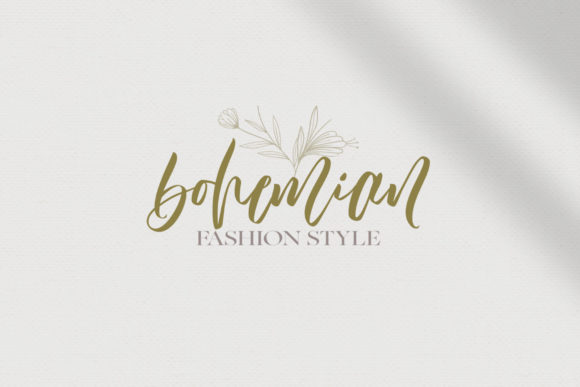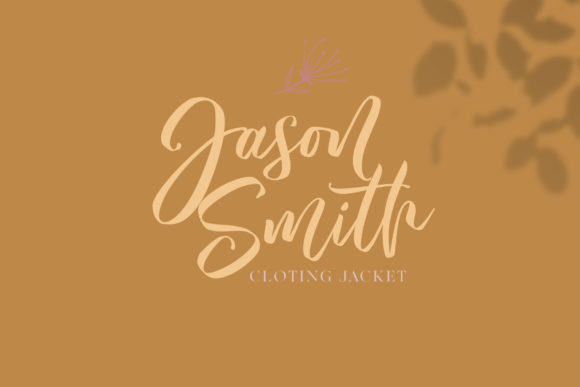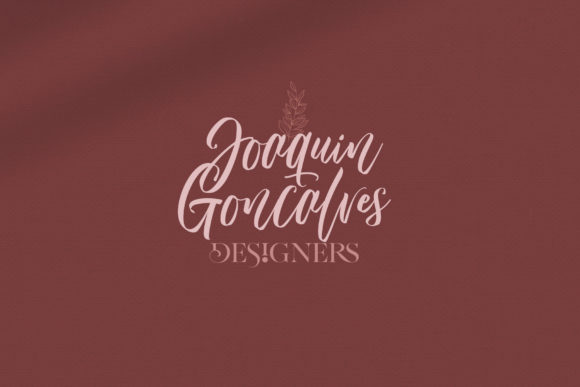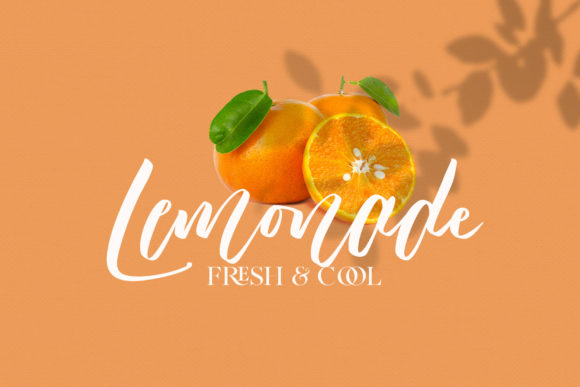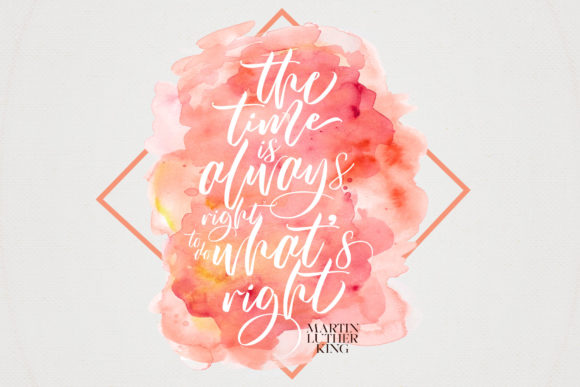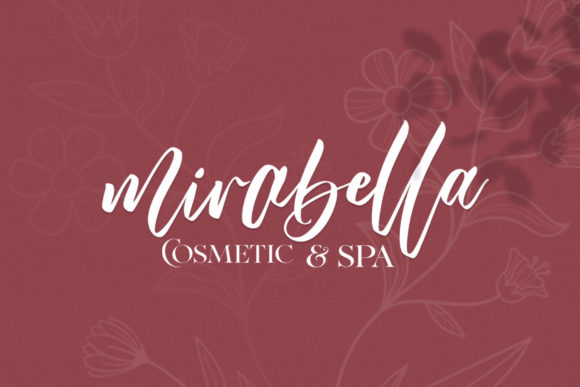
The Perfect Font for Your Masterpiece
You’ve spent hours brainstorming, sketching, and refining your design. You’ve finally landed on the perfect concept, but something’s missing – the perfect font to bring it all together. That’s where the Almere Font comes in – a flowing handwritten font that adds an elegant touch to any project.
With its incredibly distinct and timeless style, the Almere Font is a valuable addition to any designer’s toolkit. Its PUA encoding makes it easy to access all of the glyphs and swashes, allowing you to create spectacular designs with ease. Whether you’re working on a logo, poster, or magazine spread, the Almere Font is sure to make your project stand out.
Almere Font Key Features
- Font Family: Almere Font comes in three font families – Almere, Almere Sans, and Almere Script.
- Unique Characteristics: Almere Font features a unique, hand-drawn design with subtle nuances and imperfections, giving it a natural and organic feel.
Almere Font Review
Overall, I have mixed feelings about the Almere Font. While it has some unique features, it also has some significant limitations. Here’s a breakdown of what I think works and what doesn’t.
- ✨ Unique style: The Almere Font has a distinct, modern look that sets it apart from other fonts. It’s perfect for designers who want to add a touch of sophistication to their designs.
- ✨ Wide range of weights: The font comes in a variety of weights, from light to bold, making it easy to use in different contexts.
- ✨ Good for headings: The Almere Font is particularly well-suited for headings, where its unique style and bold lines can really shine.
- ⚠️ Limited legibility: While the Almere Font is great for headings, it can be difficult to read in smaller sizes or in body text. This makes it less suitable for long blocks of text.
- ⚠️ Limited language support: The font may not support all languages, which can be a problem for designers working on multilingual projects.
- ⚠️ Not suitable for low-resolution screens: The Almere Font may not display well on low-resolution screens, which can lead to pixelation and other issues.
Overall, I think the Almere Font is a great choice for designers who want to add a touch of modernity to their designs. However, it’s not suitable for every project, and designers should be aware of its limitations before using it.
To get the most out of Almere Font, use it for:
- Headings and titles to add a touch of elegance and sophistication.
- Body text to create a clean and modern look.
- Logos and branding materials to establish a consistent visual identity.
Remember to use the font consistently throughout your design to maintain a cohesive look.
Alternatives to Almere Font for Designers
Open Sans is a clean, modern sans-serif font suitable for body text and headings. It’s highly legible and versatile, making it an excellent choice for digital interfaces, magazines, and websites. Open Sans is a more modern and minimalist font compared to Almere Font, which is more geometric and elegant.
Lato is a sans-serif font with a unique blend of modern and classic elements. It’s perfect for corporate branding, advertising, and digital products. Lato has a more delicate and refined feel compared to Almere Font, which is more geometric and robust.
Montserrat is a geometric sans-serif font inspired by urban typography. It’s ideal for modern, tech-savvy brands, and digital interfaces. Montserrat is more geometric and urban compared to Almere Font, which is more elegant and refined.
Inter is a modern sans-serif font designed for digital interfaces. It’s highly legible and versatile, making it an excellent choice for websites, apps, and digital products. Inter is a more modern and minimalist font compared to Almere Font, which is more geometric and elegant.